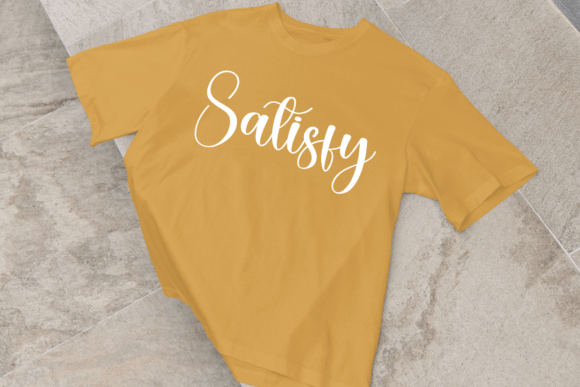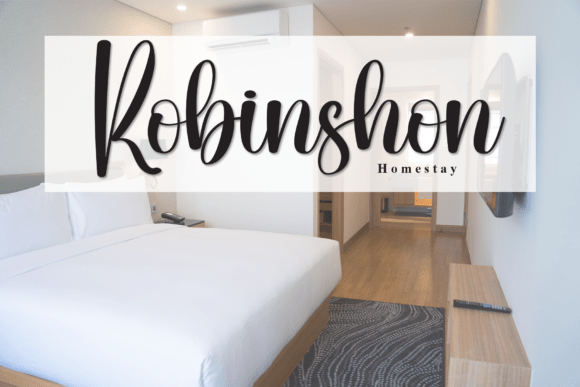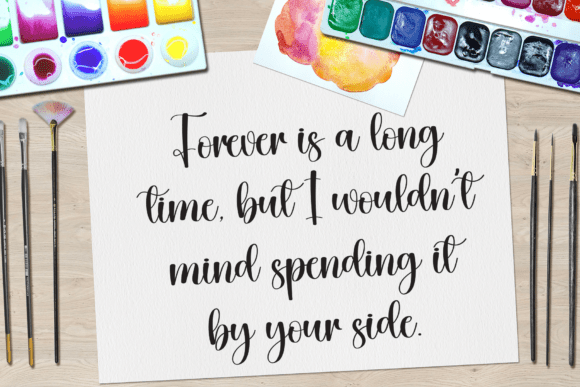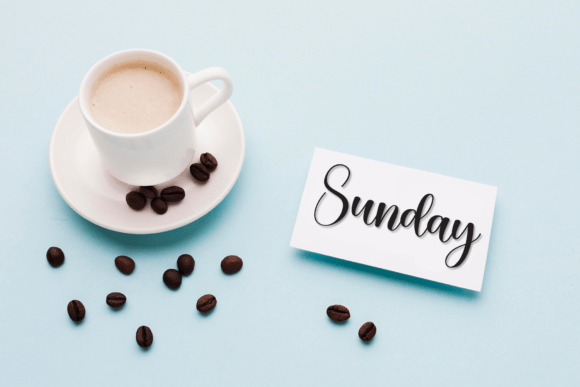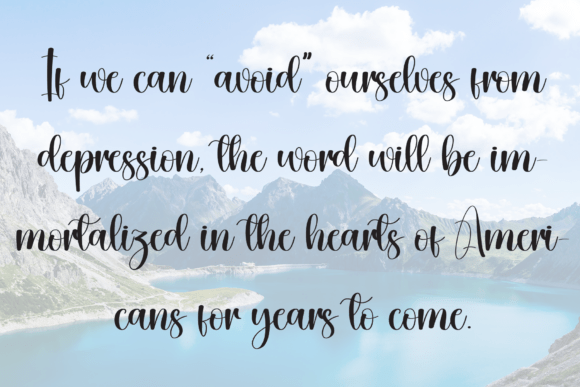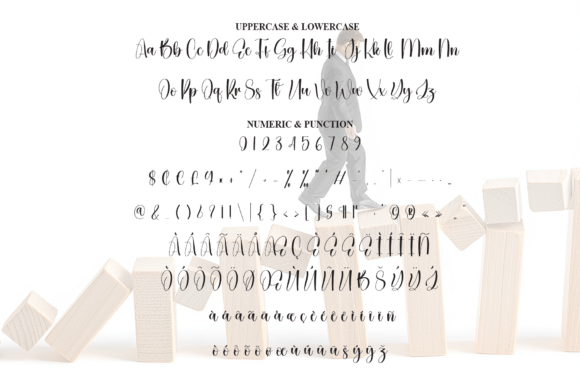
Introduction to Obstacle Font
Have you ever stared at a blank canvas, searching for the perfect font to bring your creative project to life? The struggle is real, but fear not – we’ve got just the solution for you. Introducing Obstacle Font, the ultimate design resource that’s about to revolutionize the way you approach your next creative endeavor.
Whether you’re a seasoned pro or just starting out, Obstacle Font is the perfect addition to your design arsenal. With its high-quality, transparent background, and wide range of applications – from wedding invitations to product packaging – this font is sure to elevate your work to new heights. And the best part? It’s free to download, making it an accessible and valuable resource for designers of all levels.
So why settle for a lackluster font when you can have a high-quality, creative powerhouse like Obstacle Font? With its long-term support, free features, and bug fixes, you can trust that your design will be in good hands. Get ready to take your creative projects to the next level with Obstacle Font – the ultimate design resource for the modern creative.
Key Features of Obstacle Font
- High-quality design resource for creative projects, available for free download with transparent background
- Includes a variety of unique and bold characters, perfect for adding an edge to your designs
- High-resolution font, ideal for use in large-scale designs, prints, and digital displays
- Designed to be versatile and easy to use, making it an excellent choice for designers of all levels
- Perfect for adding a touch of edginess to your designs, from logos and branding to typography and graphics
Honest Review: Obstacle Font
As a designer, I was excited to try out the Obstacle Font for my latest creative project. I downloaded it for free from a reputable design resource, and I was pleased to find that it came with a transparent background, which made it easy to integrate into my design.
One of the things that I liked about Obstacle Font is its high-quality aesthetic. It’s perfect for any design project that requires a bold and edgy look. I especially loved the unique characters and symbols that come with it – they added a nice touch to my design.
Here are some of the things that I liked about Obstacle Font:
- ✨ High-quality aesthetic that’s perfect for bold and edgy designs
- ✨ Unique characters and symbols that add a nice touch to designs
- ✨ Transparent background makes it easy to integrate into designs
However, I did find a few limitations to Obstacle Font:
- ⚠️ Limited font styles – only a few options to choose from
- ⚠️ Not ideal for small text sizes – characters can get pixelated
Overall, I was impressed with Obstacle Font and would recommend it for any design project that requires a bold and edgy look. However, it’s not ideal for small text sizes or for projects that require a lot of font options.
Tips for Getting the Most Out of Obstacle Font
For the best results, use the Obstacle Font in combination with a bold background color or image to make the text stand out. You can also experiment with different font sizes and styles to create a unique visual effect.
The Obstacle Font is perfect for creative projects, such as:
- Logo designs
- Infographics and data visualizations
Obstacle Font is available for free download, making it a valuable design resource for anyone looking to add a unique touch to their creative projects.